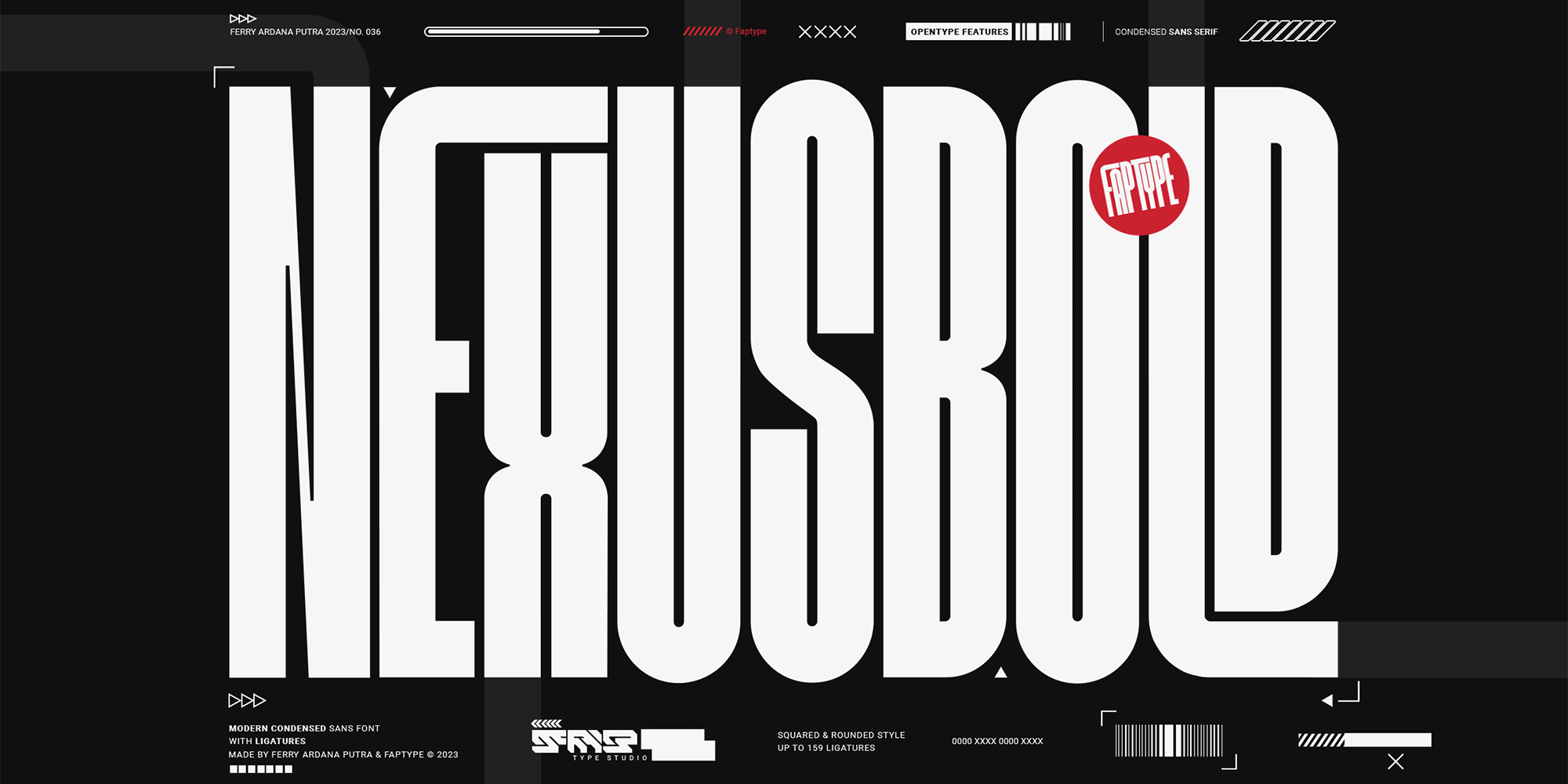
Nexusbold Sans Font Free Download is a powerful and contemporary sans-serif typeface designed to deliver clarity, strength, and modernity. Its bold letterforms and clean lines make it an excellent choice for branding, corporate communications, advertising, posters, and web design. Nexusbold Sans creates a strong visual impact while maintaining exceptional readability.
The font’s structured geometry and balanced proportions ensure versatility across a variety of design applications, from large-scale displays to smaller text elements. Its straightforward design is ideal for projects that require a professional, modern, and assertive tone. Nexusbold Sans works seamlessly in both print and digital formats, offering designers consistent performance and aesthetic appeal.
Nexusbold Sans is a valuable addition to any designer’s toolkit, providing the strength and flexibility needed for contemporary and impactful visual communication.